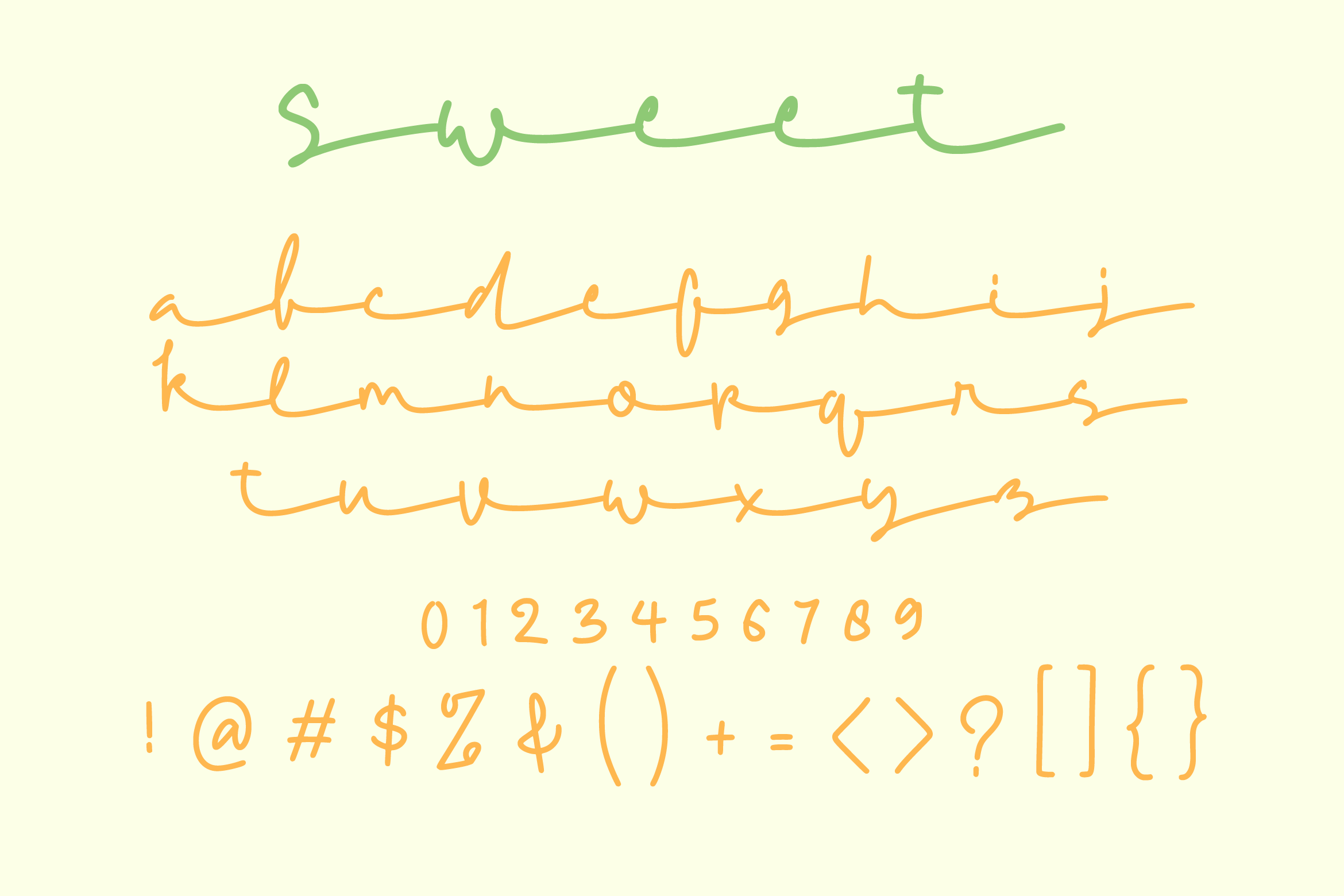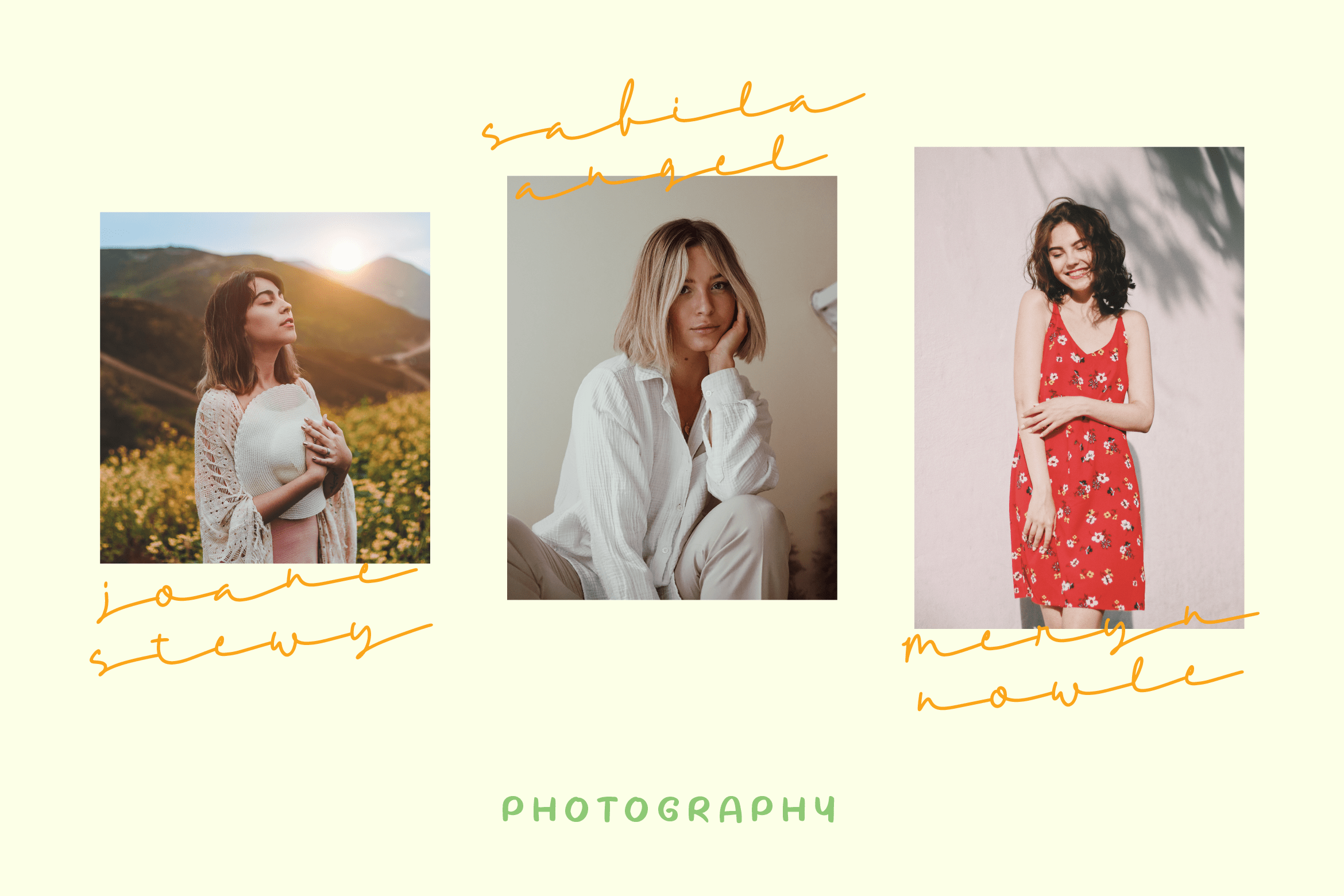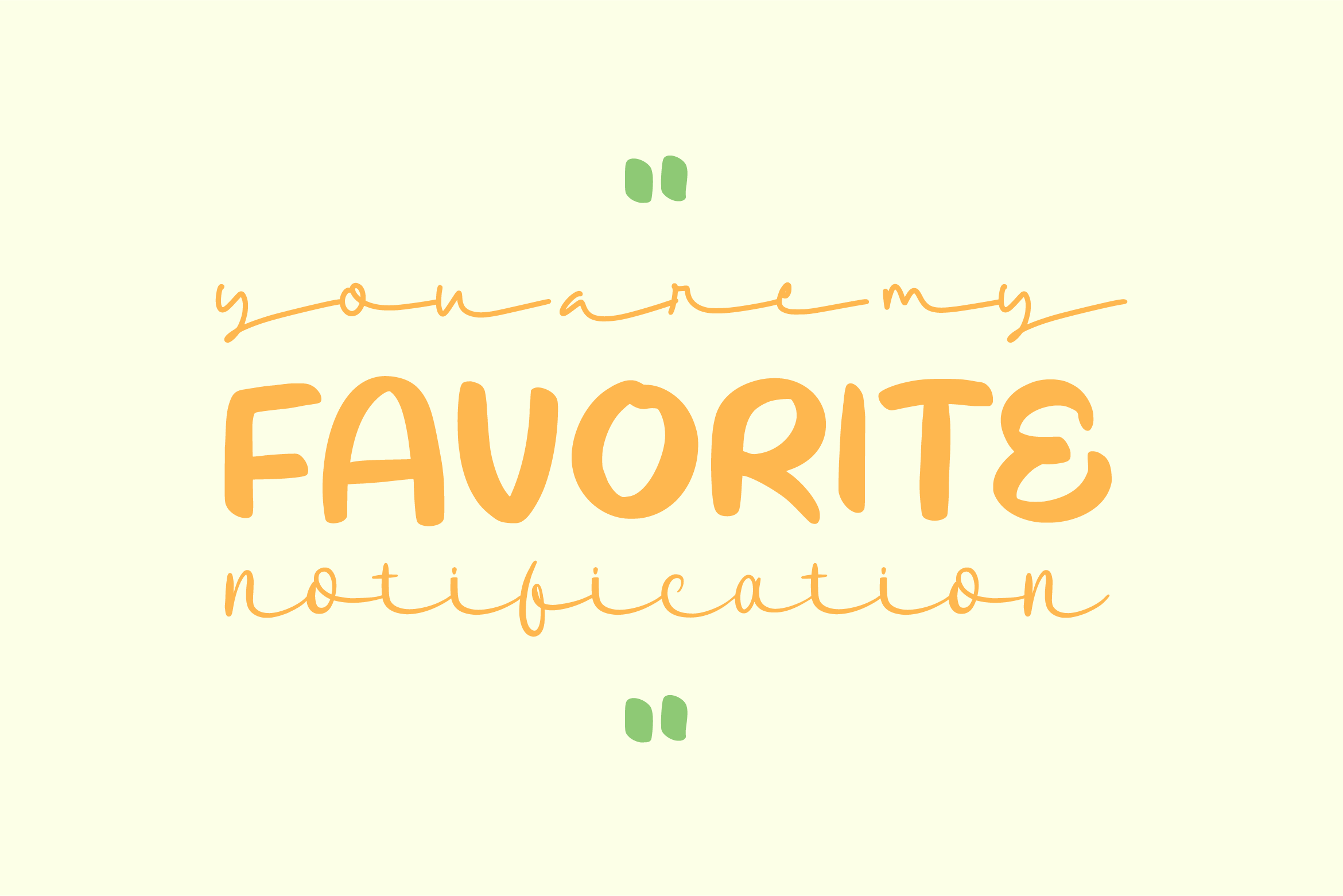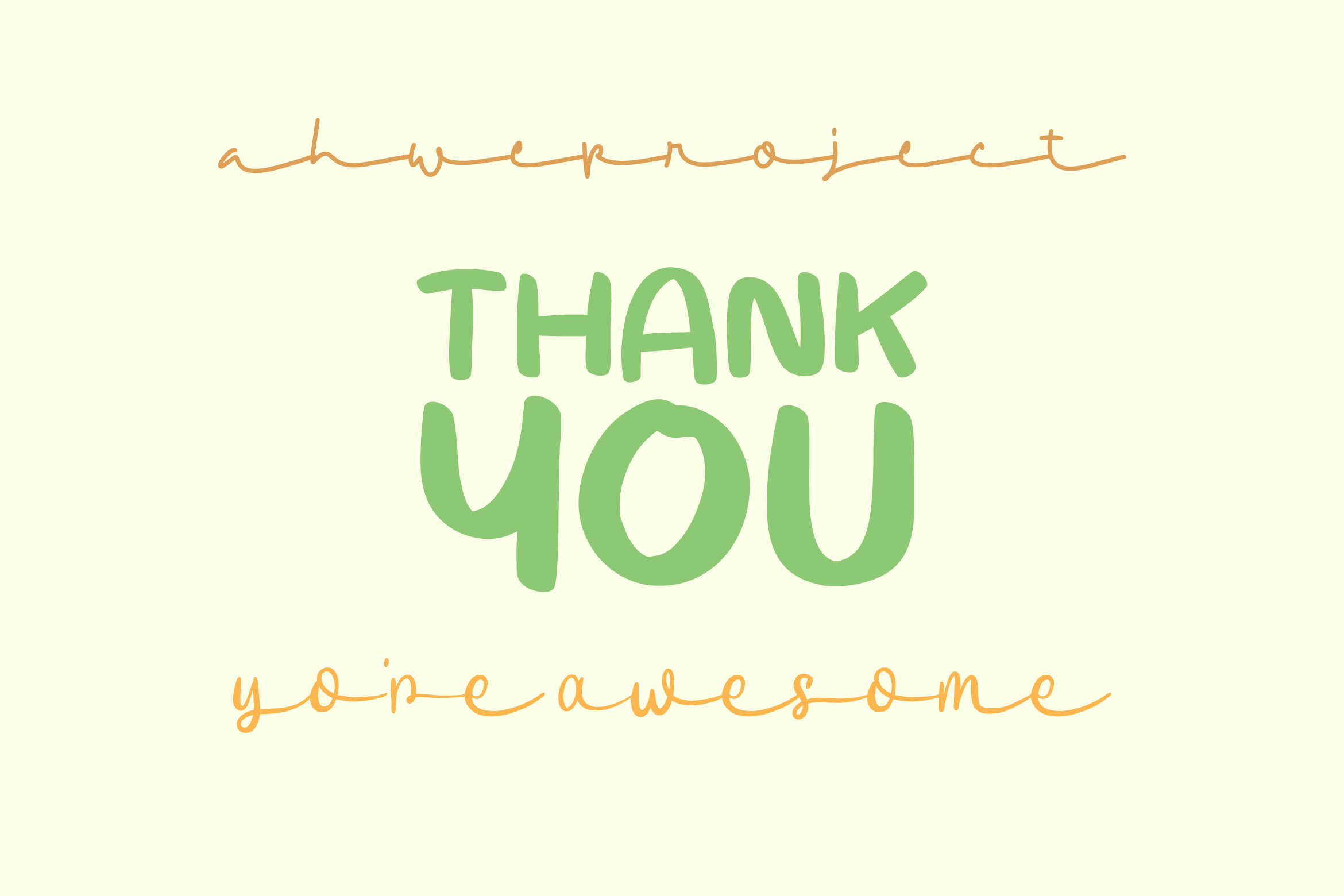
Sweet Lovely Rainbow One Font
Sweet Lovely Rainbow Font
This font is a cute and relaxed trio styled handwritten font. Its natural and unique style makes it suitable for a variety of design ideas. Add it confidently to your projects, and you will love the results.